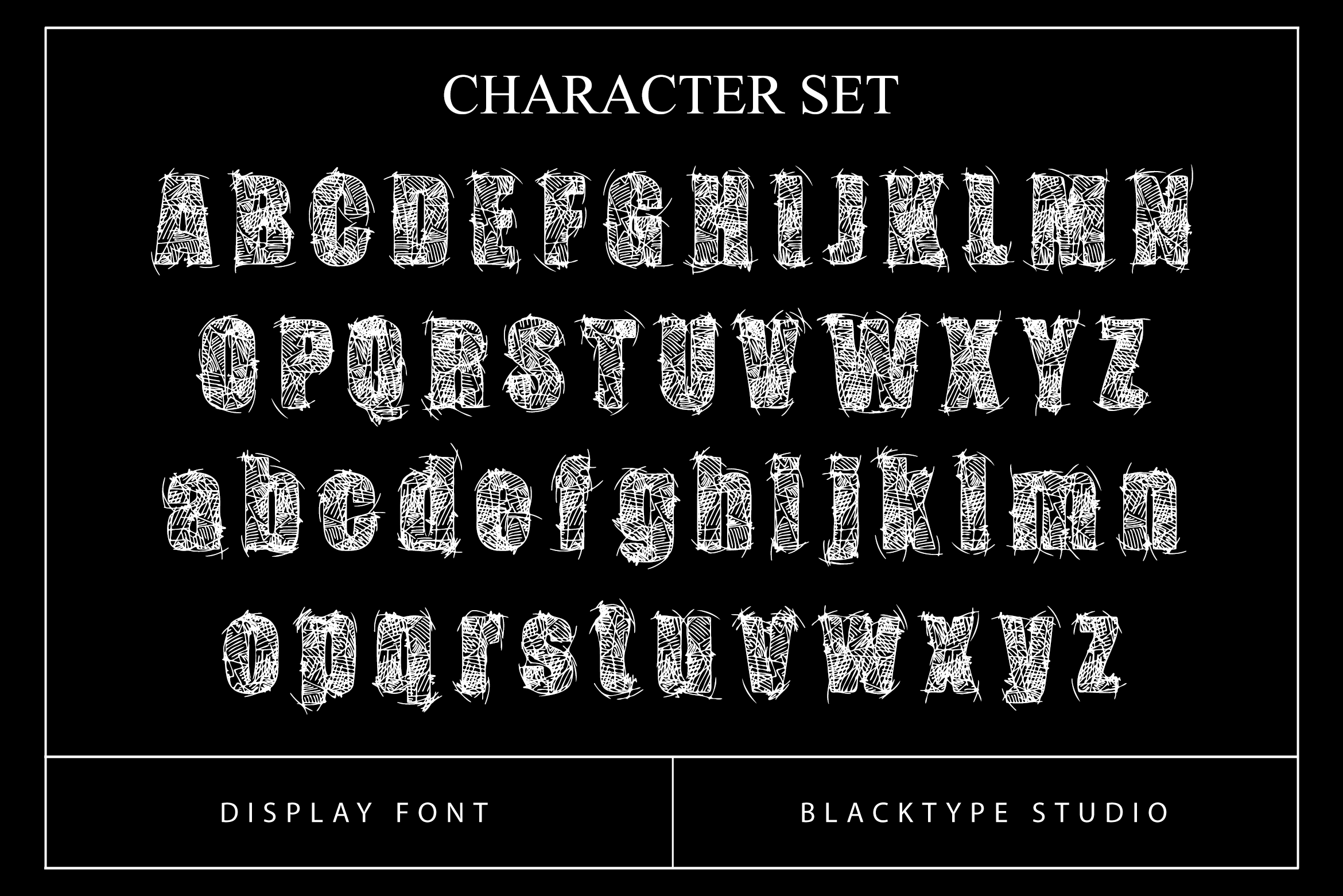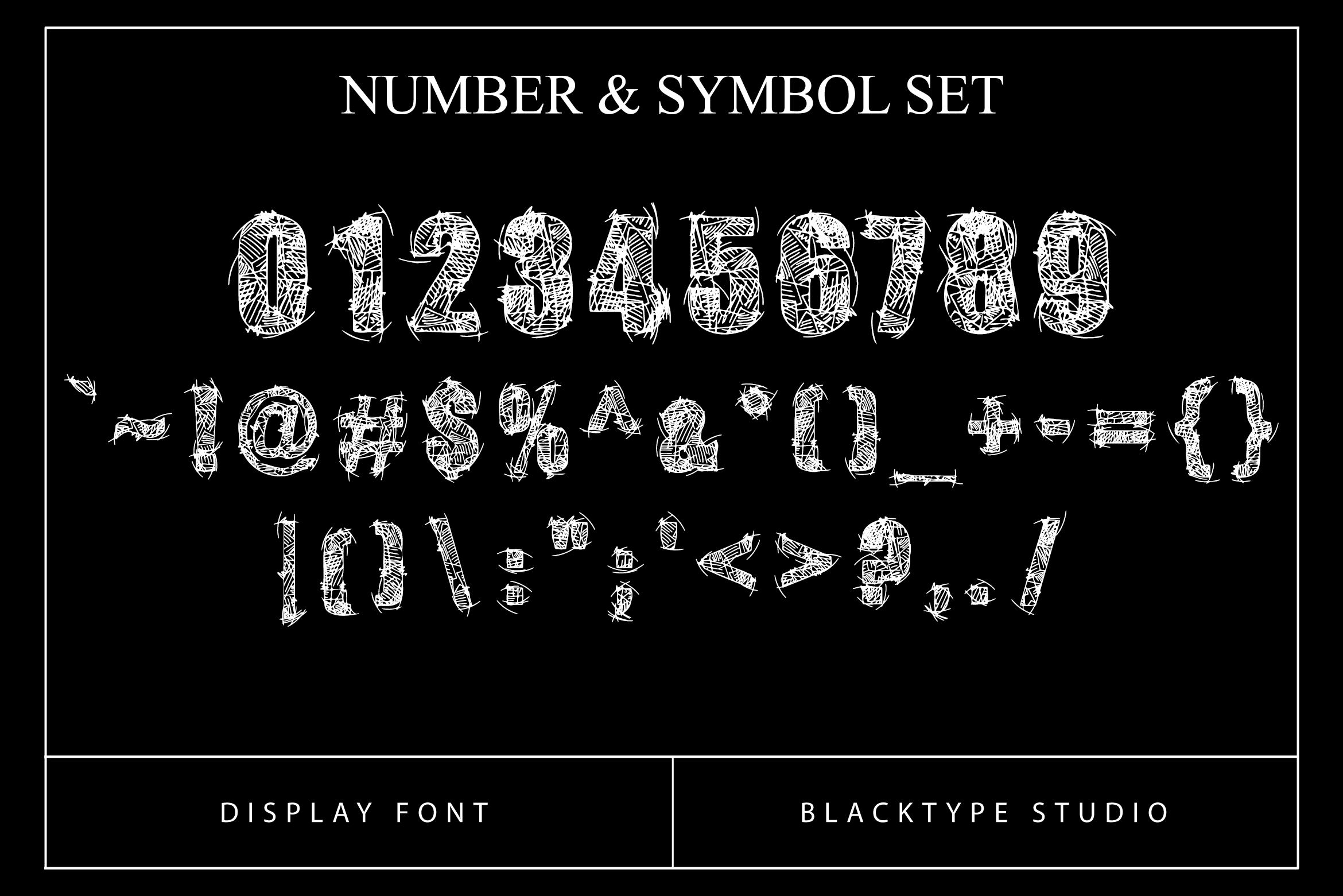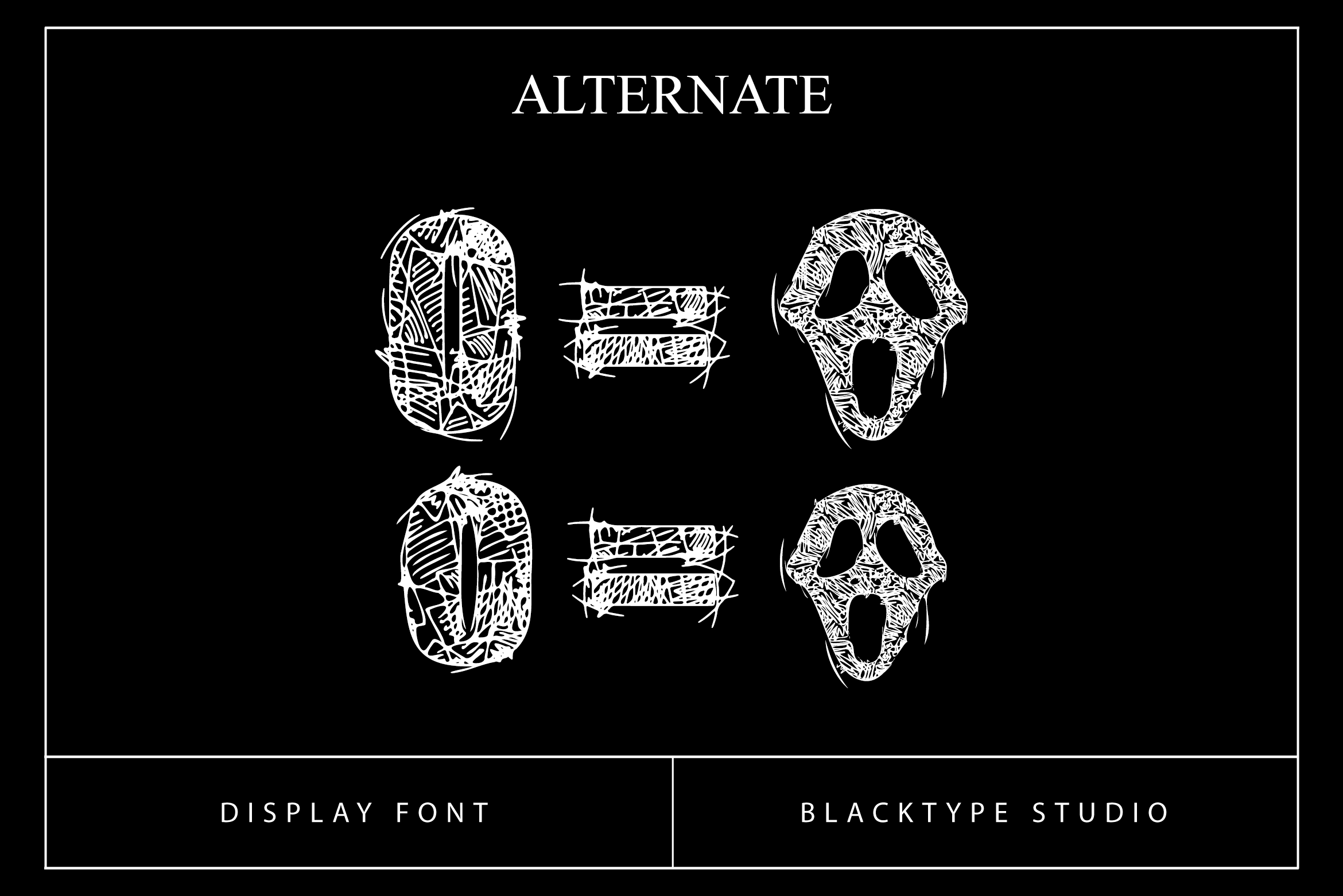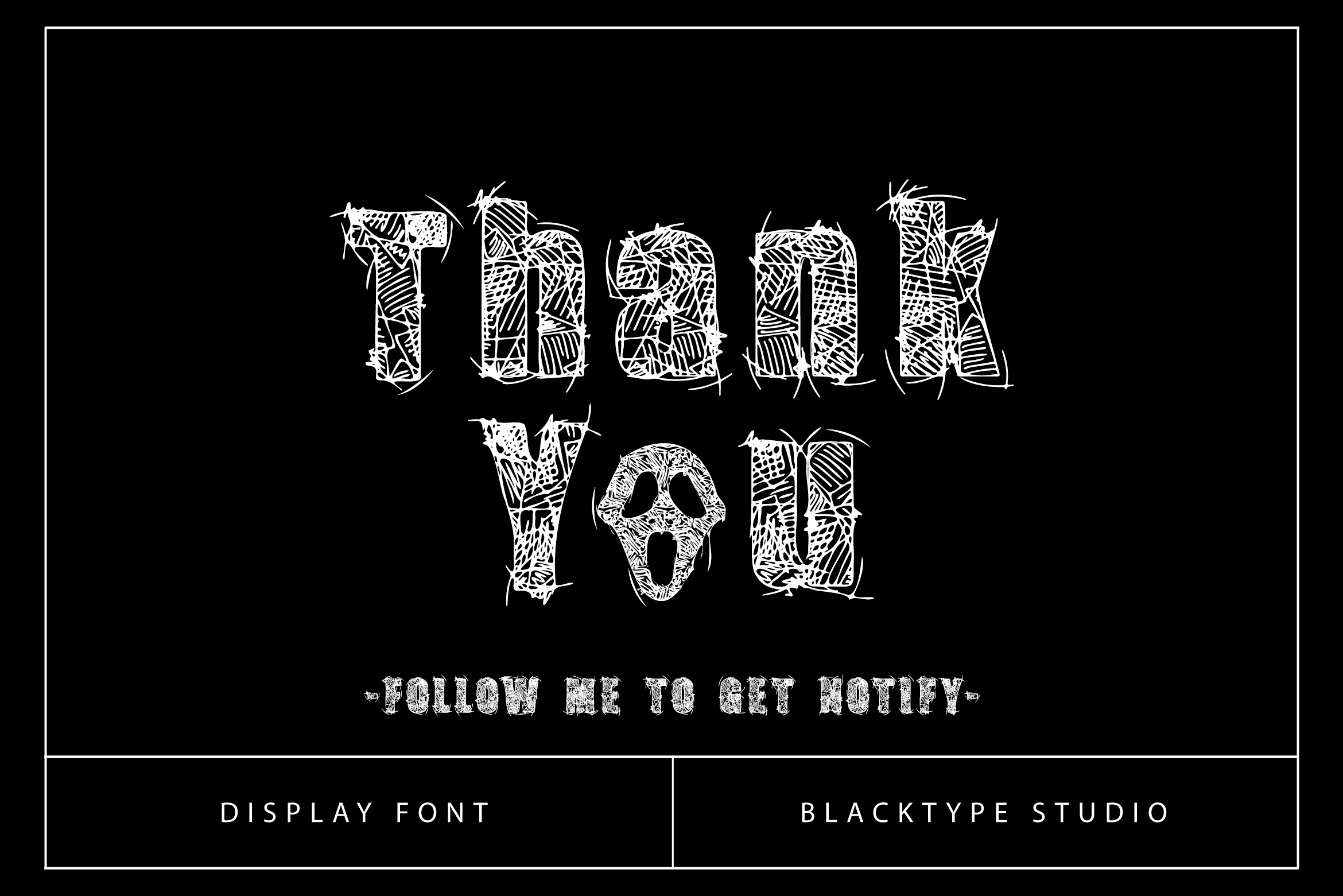
Hallowen Font is a cool, uniquely designed and highly detailed decorative font. Add this font to your October party or to your Halloween projects, and you will fall in love with the results.